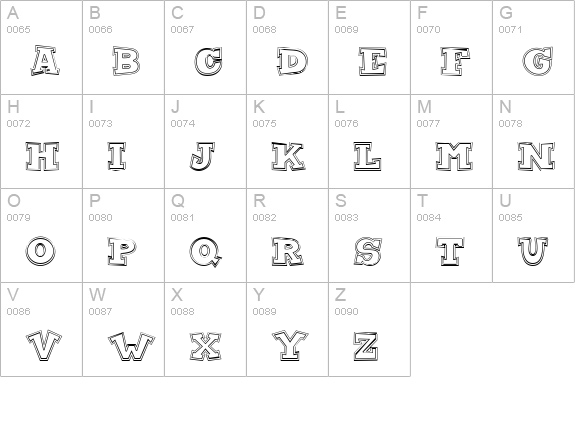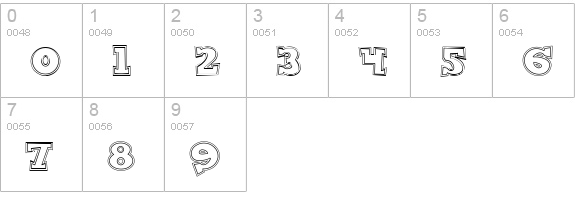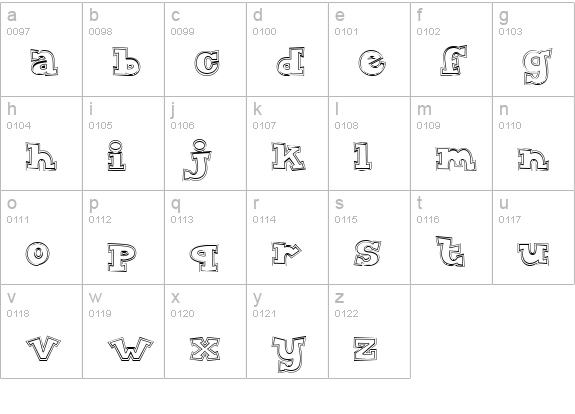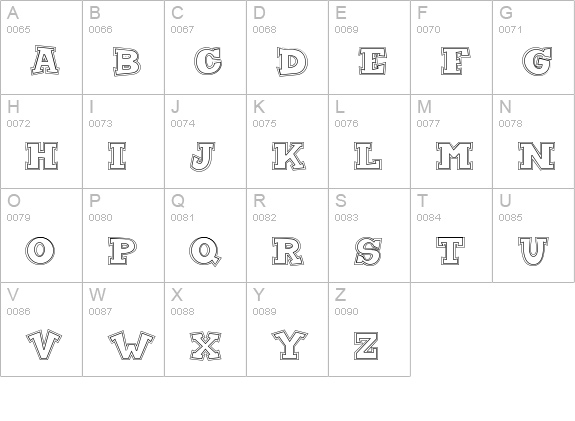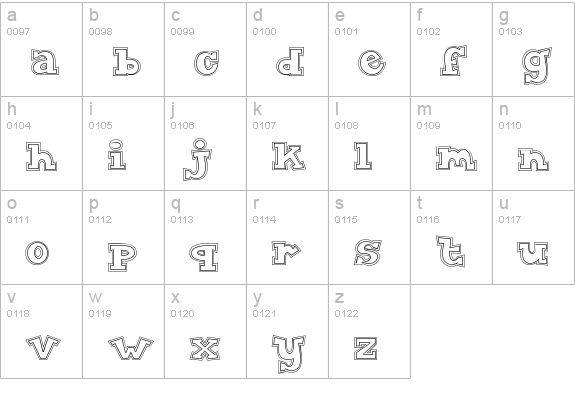
CK Fan Club Font Details
Introducing the stunning CK Fan Club font, a modern and stylish typeface that is sure to make your designs stand out from the crowd. With its sleek lines and elegant curves, this font exudes a sense of sophistication and creativity. What's even better is that CK Fan Club is completely free to download! That's right, you can get your hands on this fantastic font at no cost at FontsMarket.com. Whether you're working on a personal project, designing for a client, or simply looking to add some flair to your creations, CK Fan Club is the perfect choice. Don't miss out on the opportunity to enhance your designs with this beautiful font. Download CK Fan Club today and let your creativity shine!